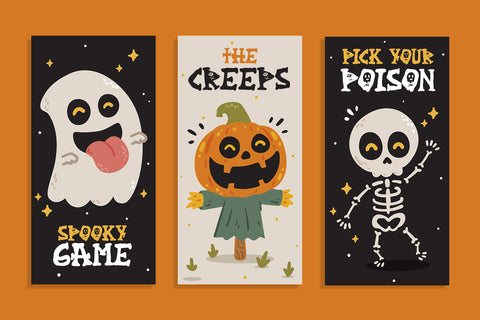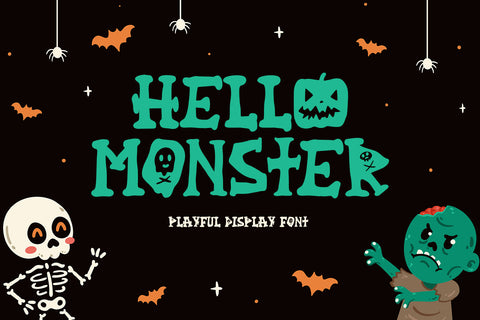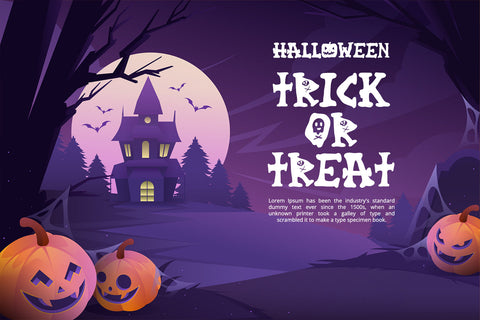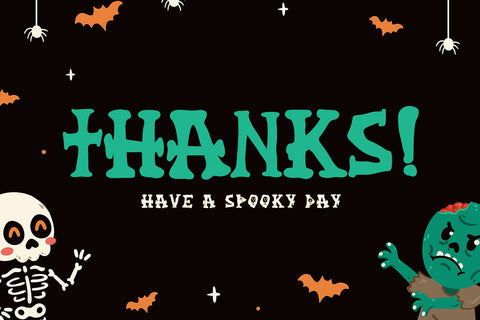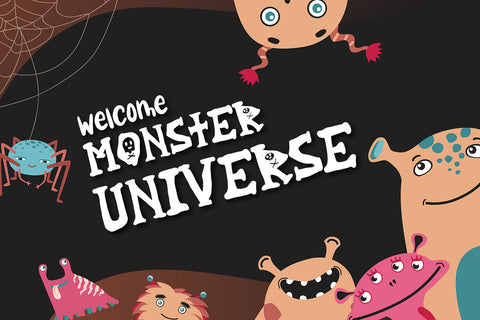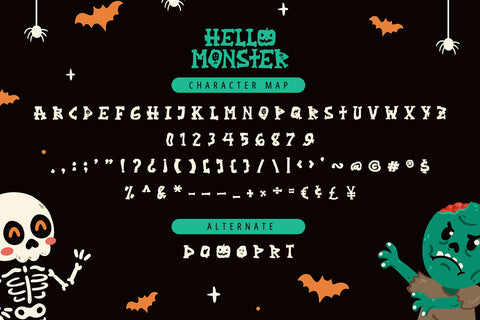
Hello Monster - Playful Display Font
Hello Monster is a stunning playful display font with cute and playful feels. It will be perfectly used for Branding, Logo Design, Lettering, Logotype, Clothing, Poster, magazine, packaging, posters, shopping bags, t-shirts, book covers, photography, special events and other design project.